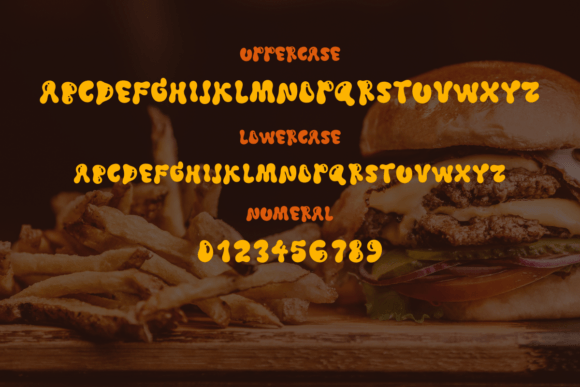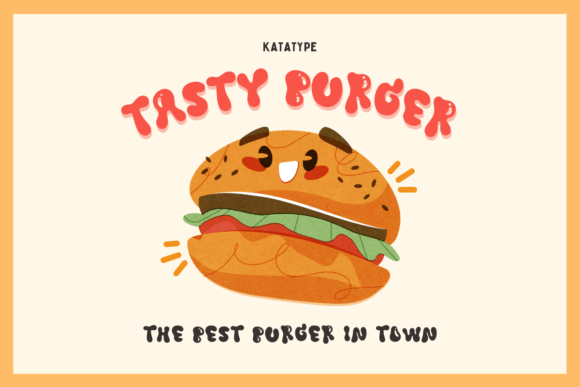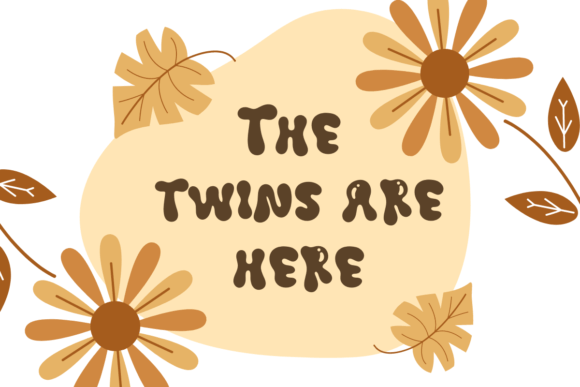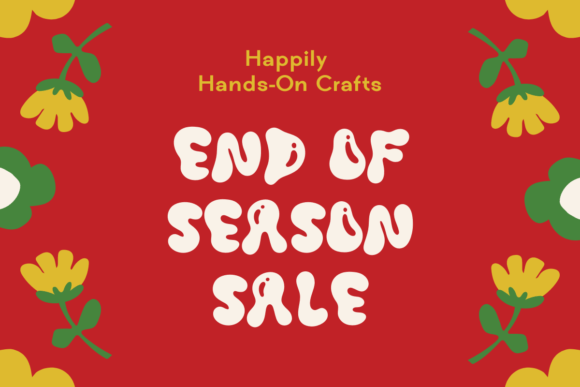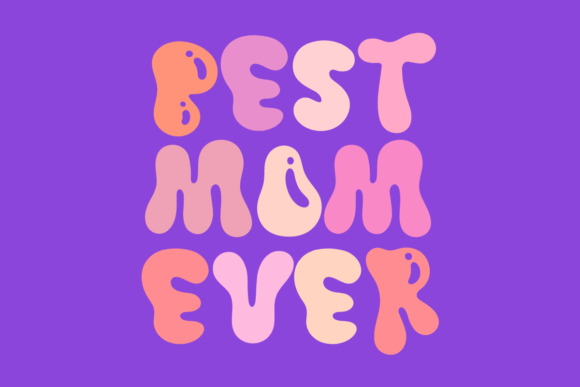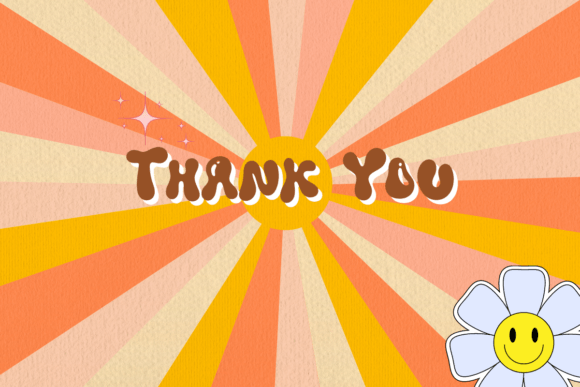
The Ultimate Guide to Burger Squad Font: A Retro-Groovy Display Font
I’ll never forget the design project that led me to discover Burger Squad Font. I was working on a branding campaign for a trendy new restaurant, and I was struggling to find the perfect font to capture their fun and playful vibe. That’s when I stumbled upon Burger Squad, and it was love at first sight! 💕
This display font is full of positivity and character, with a retro-groovy feel that’s perfect for quotes, headings, logos, branding, merchandise, and websites. In this article, I’ll share my honest review of Burger Squad, a practical guide on how to use it, and some similar font alternatives to consider.
- ✅ Unique and eye-catching design that’s sure to grab attention
- ✅ Highly versatile and can be used for a wide range of design projects
- ✅ Easy to read, even at smaller sizes
- ✅ Extensive OpenType features, including glyphs and stylistic alternates
- ⚠️ Some users may find the font a bit too bold or overpowering for certain designs
- ⚠️ Limited suitability for body text or long-form content
The Story Behind Burger Squad
Burger Squad was designed with the goal of creating a font that’s fun, playful, and full of personality. The designer wanted to capture the spirit of retro-groovy style, while still making the font highly versatile and easy to use. The result is a font that’s perfect for designers, crafters, and creative hobbyists who want to add a pop of personality to their work.
Q: What type of projects is Burger Squad best suited for?
A: Burger Squad is perfect for quotes, headings, logos, branding, merchandise, and websites. It’s a display font, so it’s best used for short-form content and titles.
Q: Is Burger Squad a difficult font to read?
A: No, Burger Squad is designed to be easy to read, even at smaller sizes. However, as with any font, it’s best to use it in moderation and in conjunction with other fonts to create visual interest.